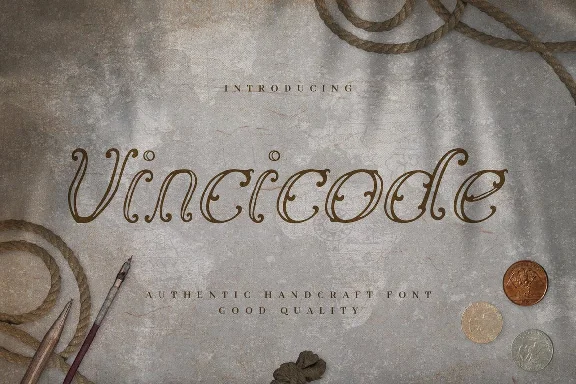
VINCICODE Font - Elegant Vintage Font
Are you looking for an elegant fancy vintage script font? We can help! Try the Vincicode font. The font is suitable for use for all everyday purposes. Try using it for a wedding invitation, summer holiday, birthday card, poster, postcard, photo, branding, editorial, quote, travel, signature and much more🙂